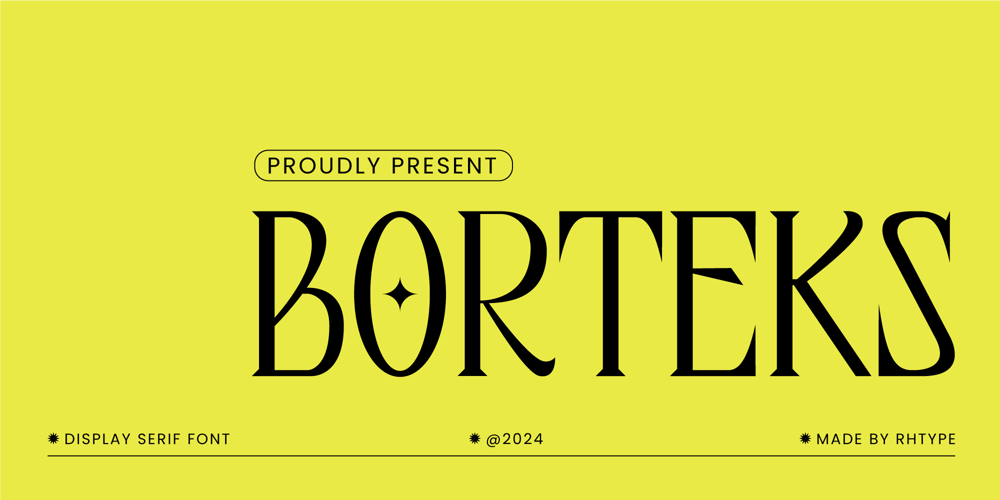
Borteks Font Family was designed by Rizky Herdiansyah and published by Rhtype. Borteks contains 1 styles and family package options. Borteks font is a display serif typeface known for its firm, straightforward, and elegant characteristics. It is suitable for branding and various design projects. The clean lines and refined details of Borteks font convey a sense of sophistication and professionalism. Its bold yet graceful appearance makes it an excellent choice for creating a strong visual identity. Whether used in headlines, logos, or other design elements, Borteks font adds a touch of class and refinement to any project.